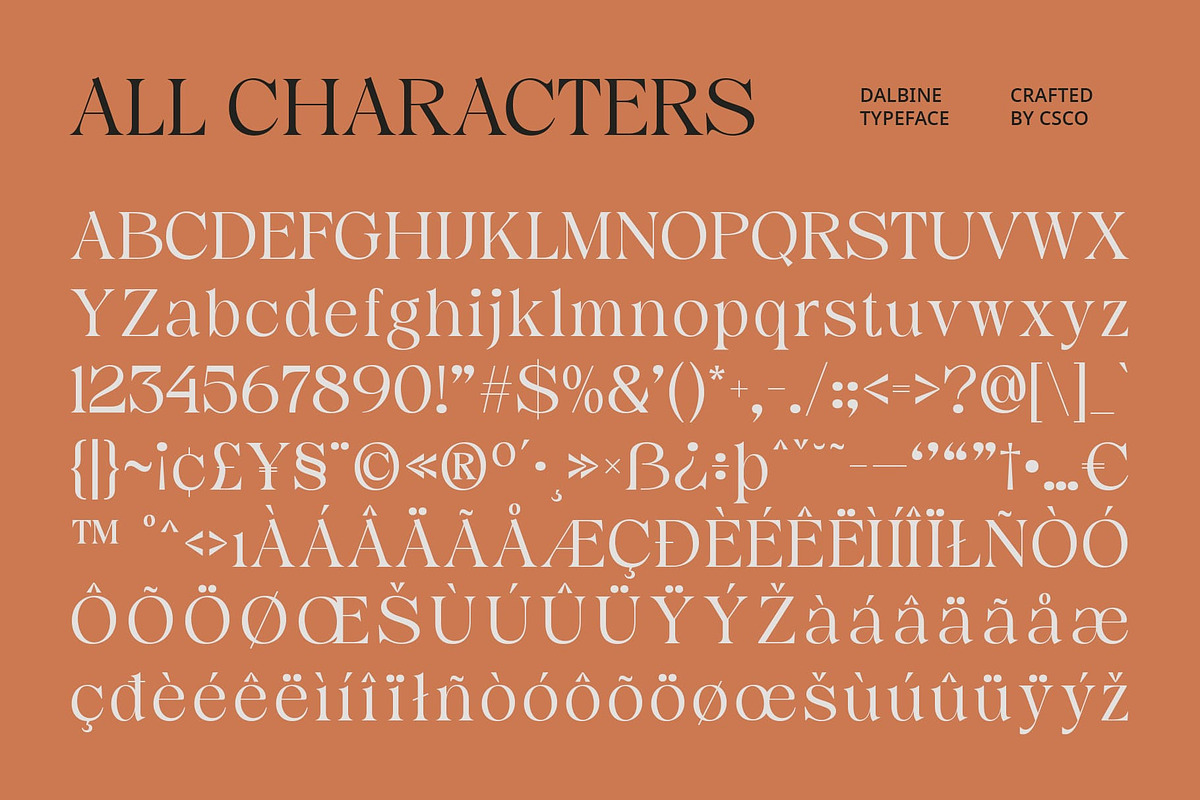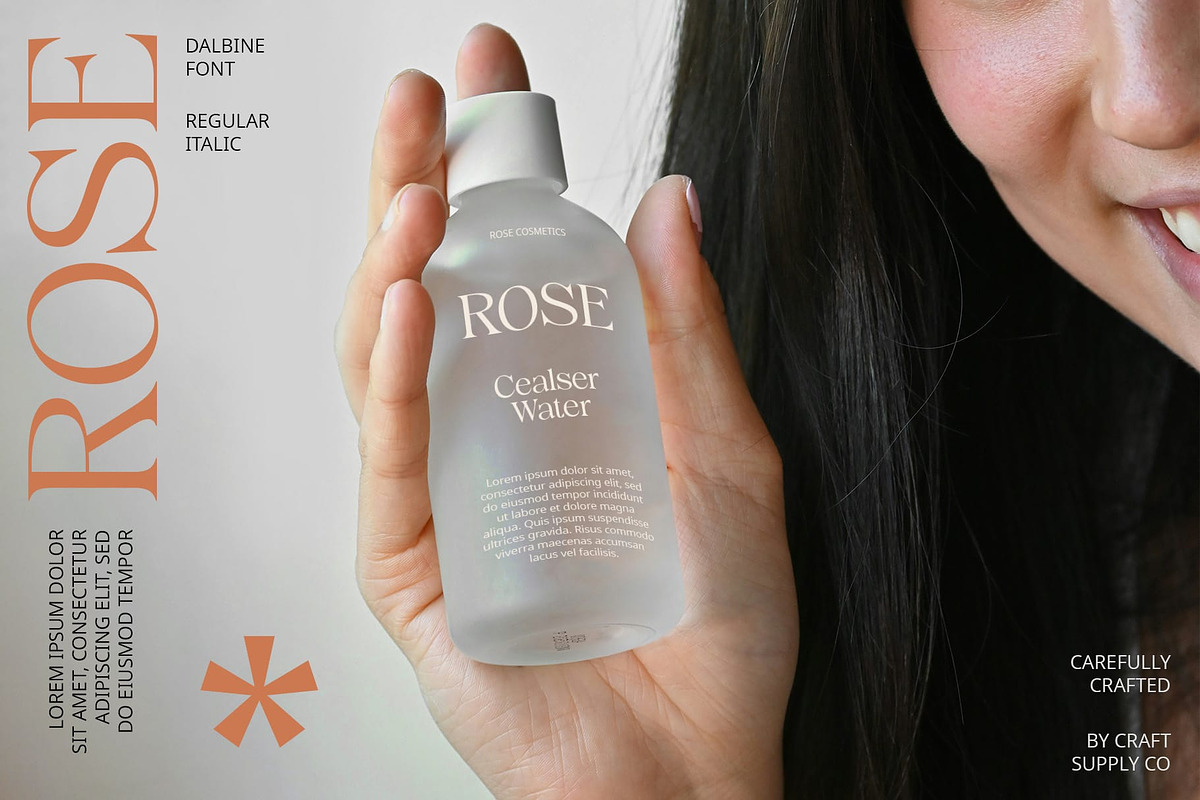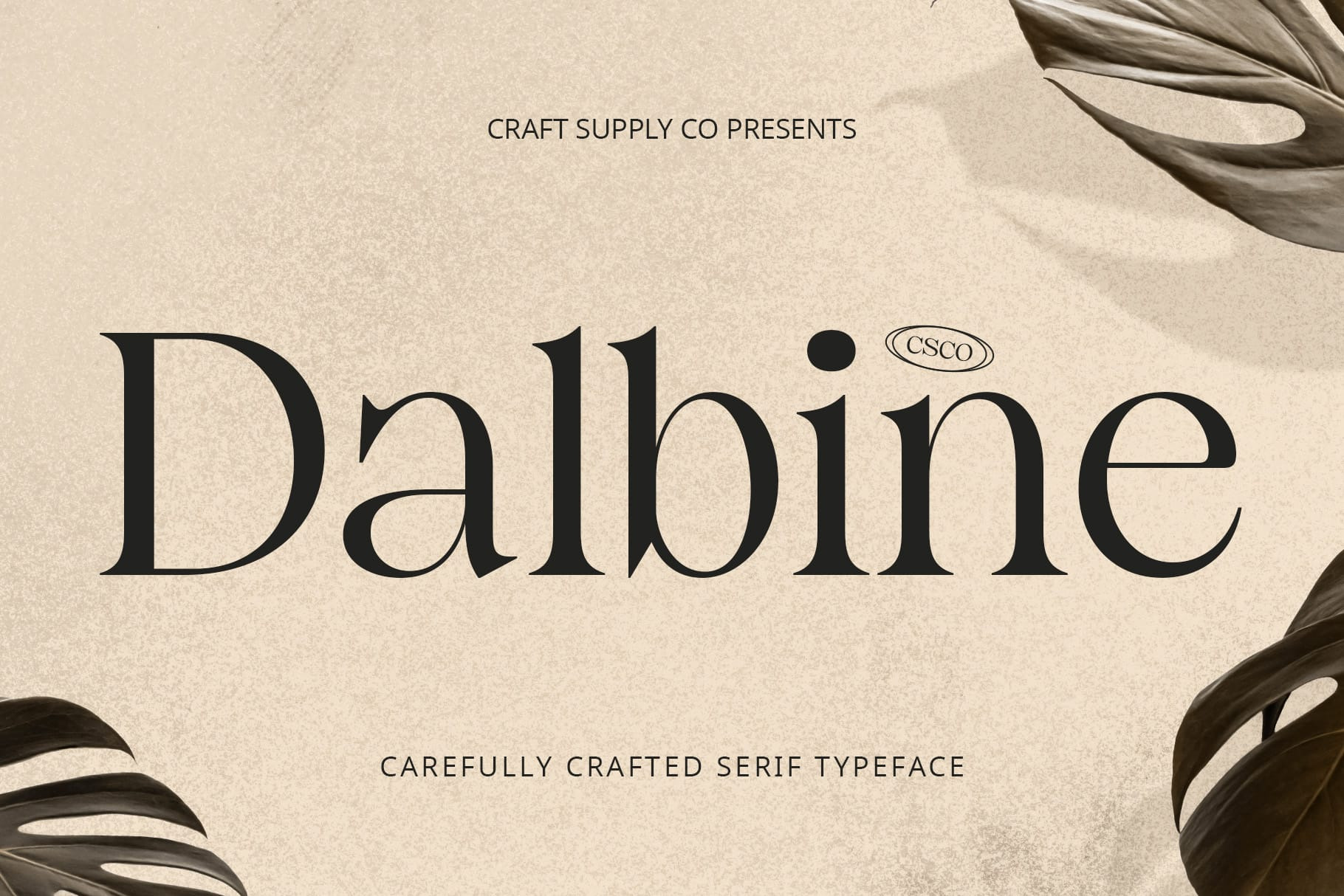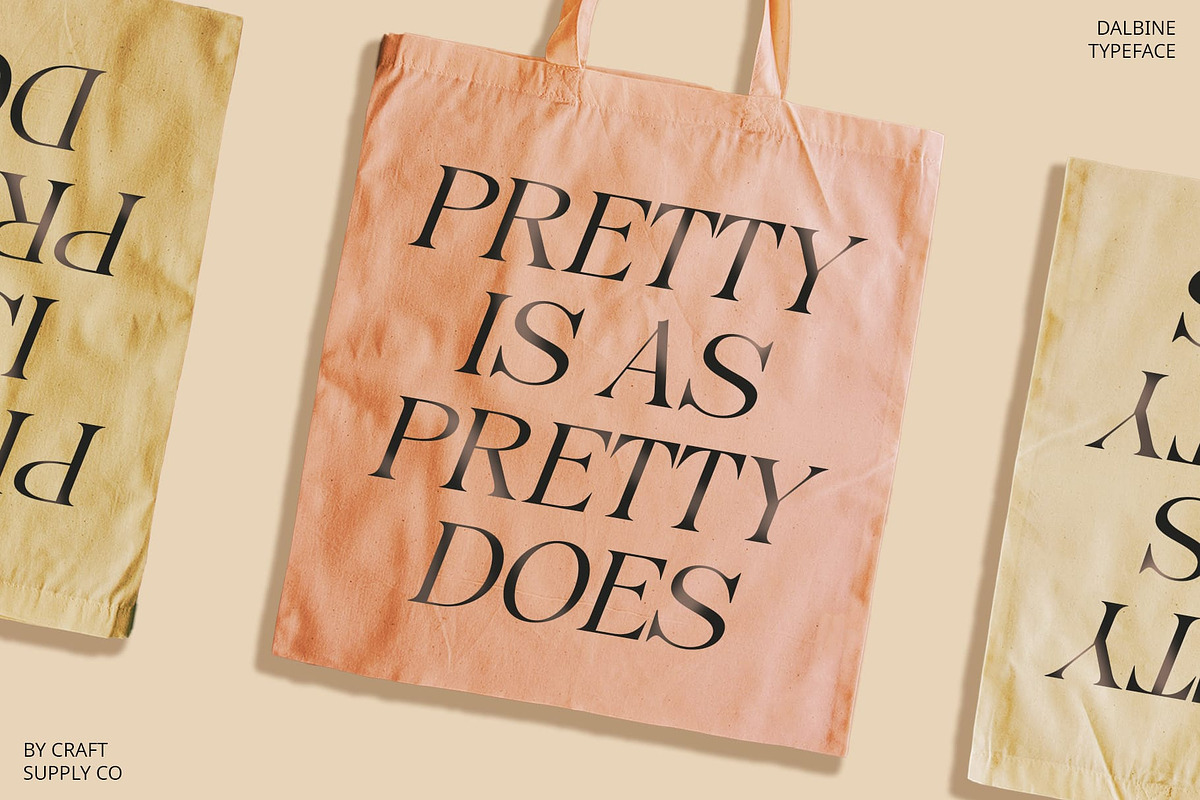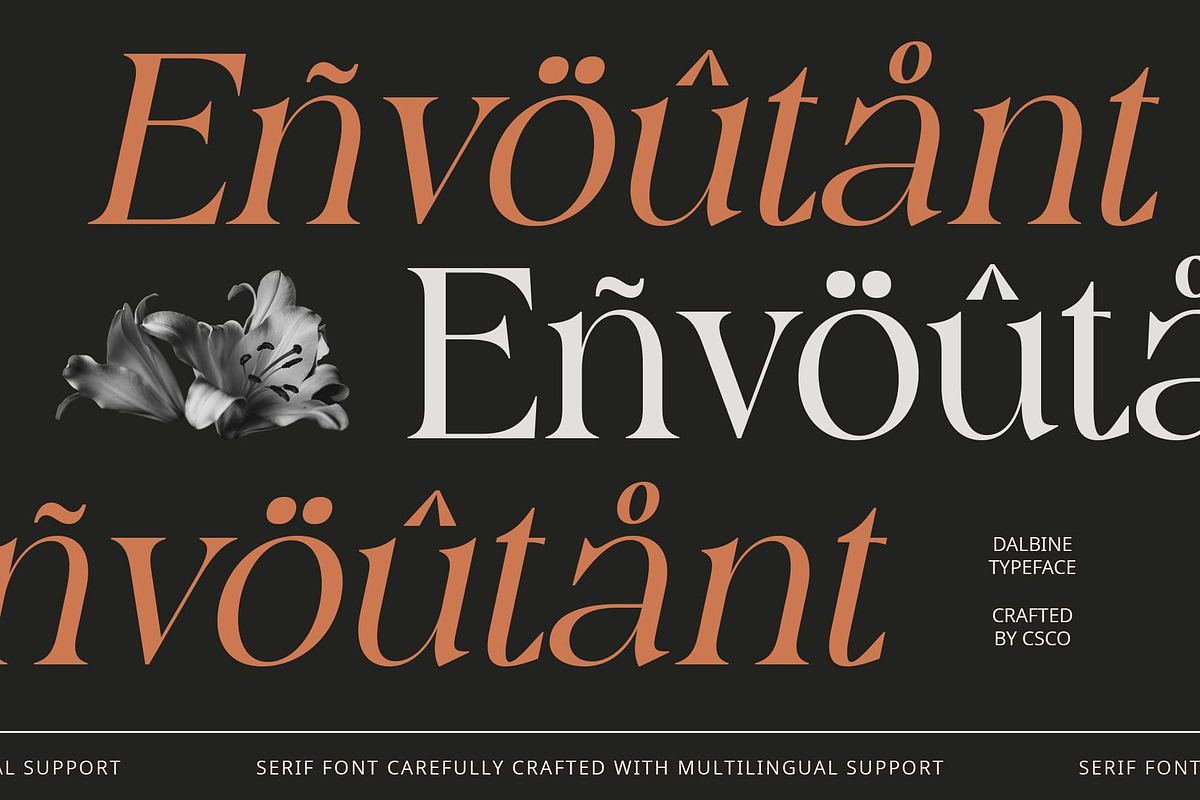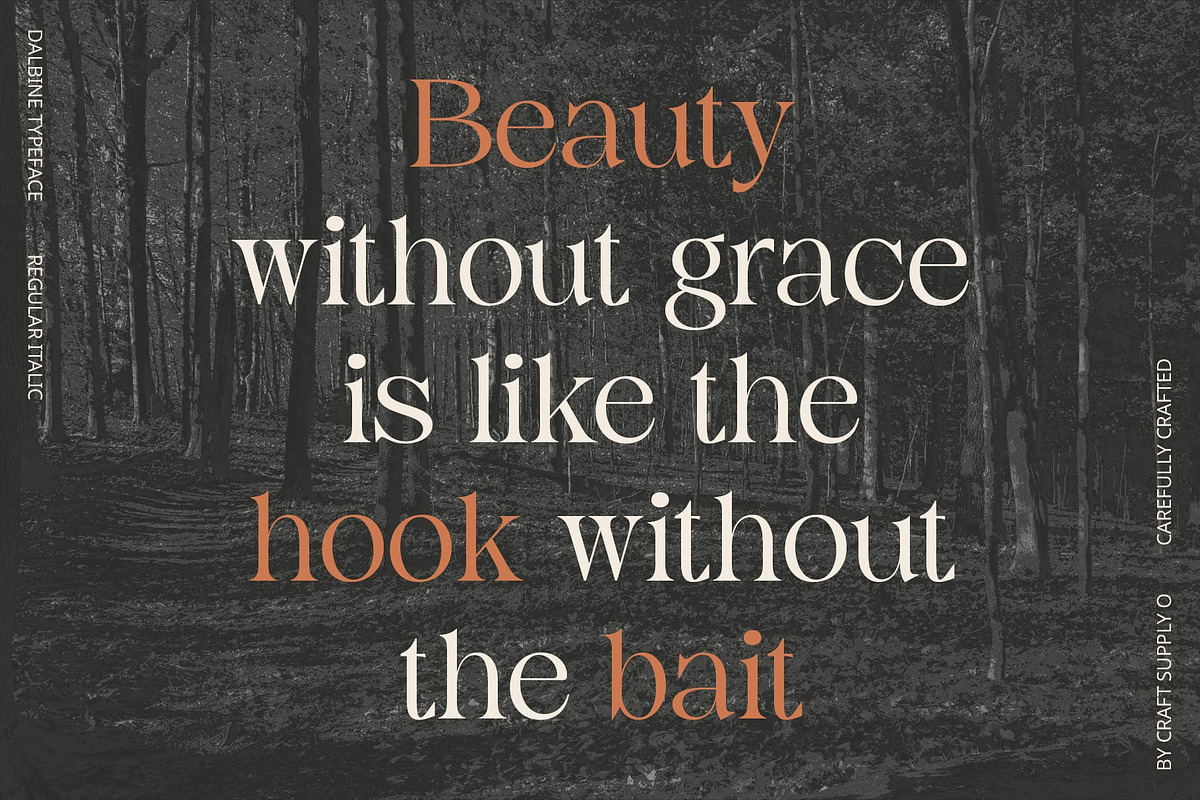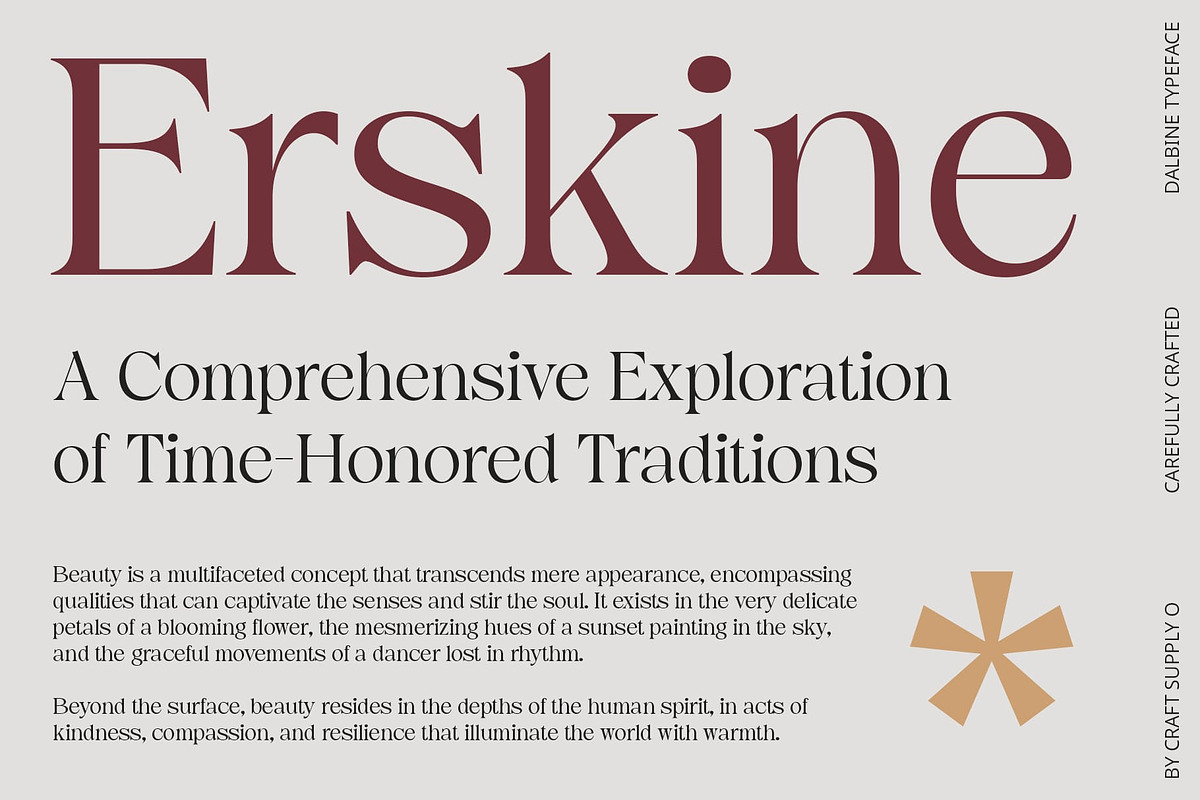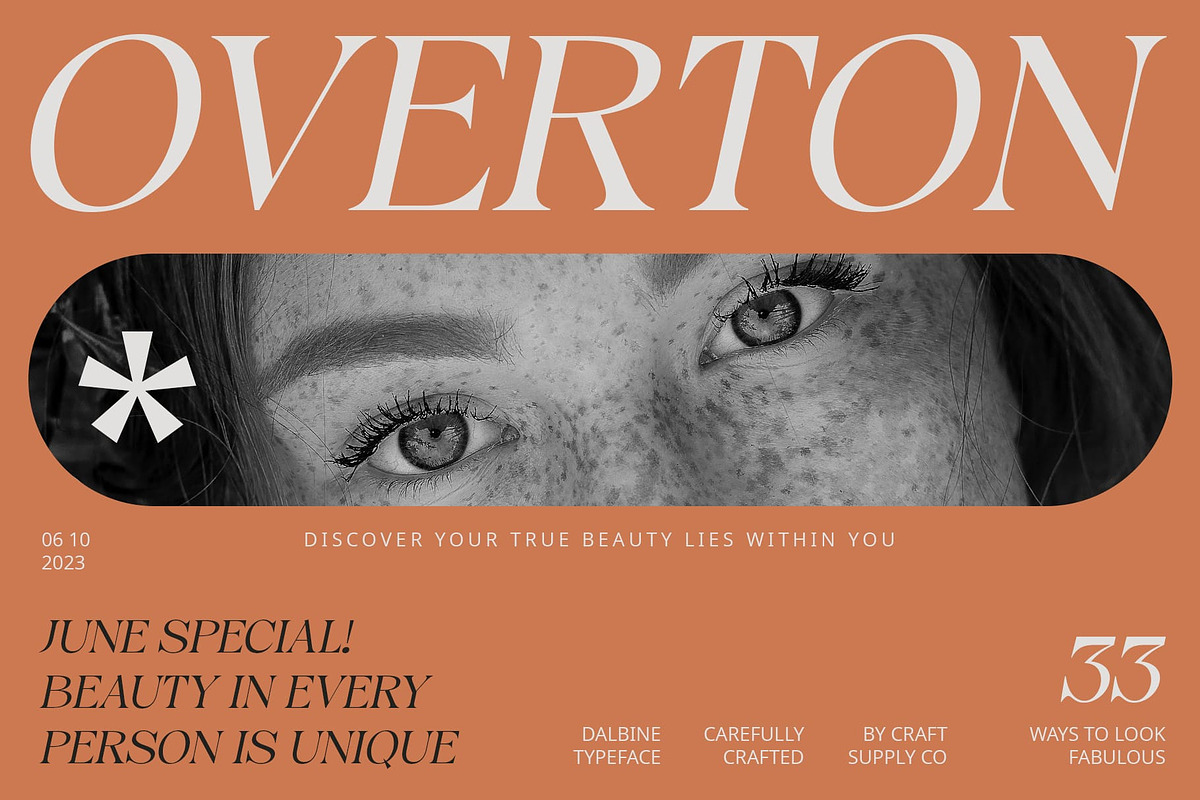
Dalbine – Elegant Font
Dalbine – Elegant Font: Where Luxury Meets Professionalism
Modern Serif Font with an Elegant Feel
Dalbine is a modern serif font with an elegant feel, perfect for providing a luxurious and professional look to various corporate designs. Its sleek lines and classic proportions make it ideal for projects that prioritize a professional, luxurious, and elegant impression.
Perfect for Professional Designs
With its versatile design, Dalbine Font is suitable for a wide range of corporate designs, including branding, advertising, and editorial layouts. Its elegant feel adds a touch of sophistication, ensuring that your designs convey a sense of professionalism and refinement.
Enhanced Elegance
Dalbine Font prioritizes elegance, ensuring that your designs are both refined and captivating. Whether used in print or digital media, this font adds a sense of luxury and class that resonates with viewers.
Suitable for Various Corporate Designs
Whether you’re designing a corporate identity, creating promotional materials, or developing a website, Dalbine Font is the perfect choice for projects that require a professional, luxurious, and elegant look. Its modern serif style ensures that your designs will always look sophisticated and timeless.
Elevate your corporate designs with Dalbine Font and add a touch of luxury and professionalism to your projects.
- Dalbine Regular
- Dalbine Italic